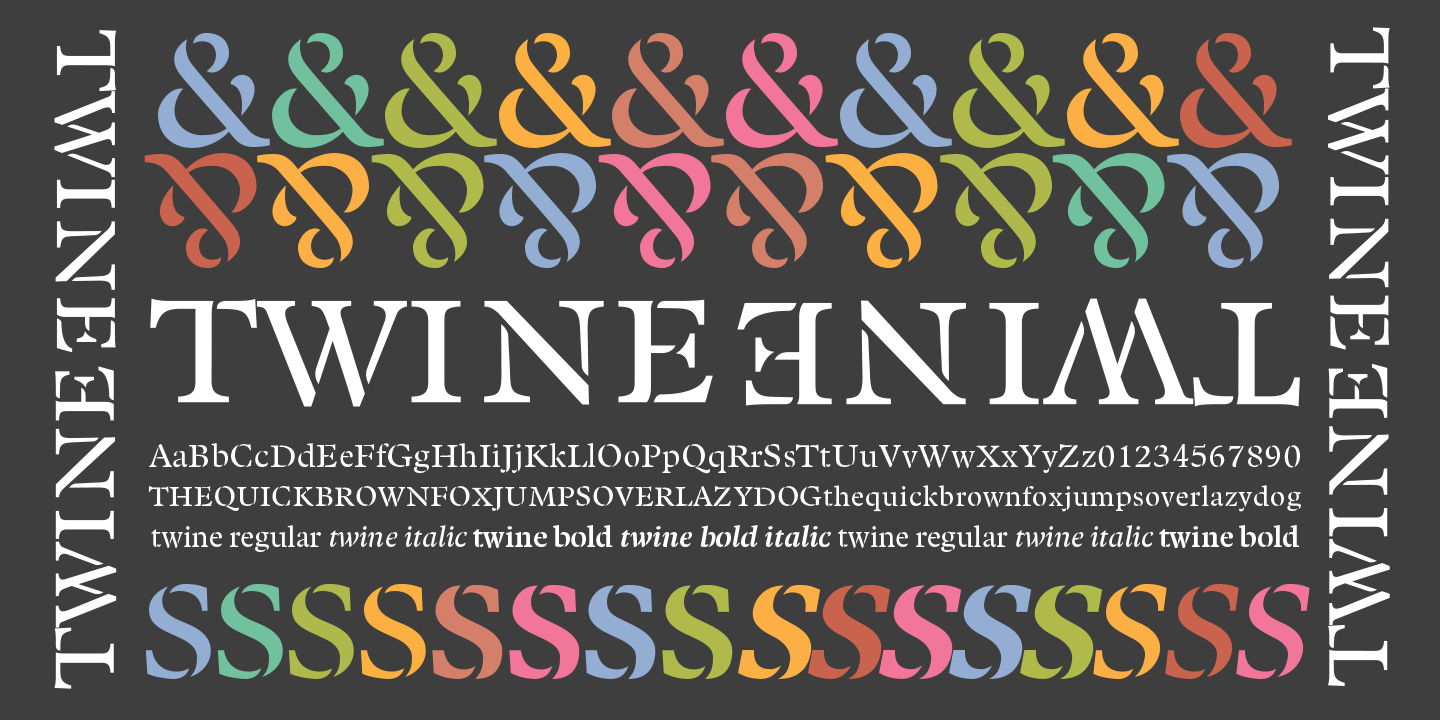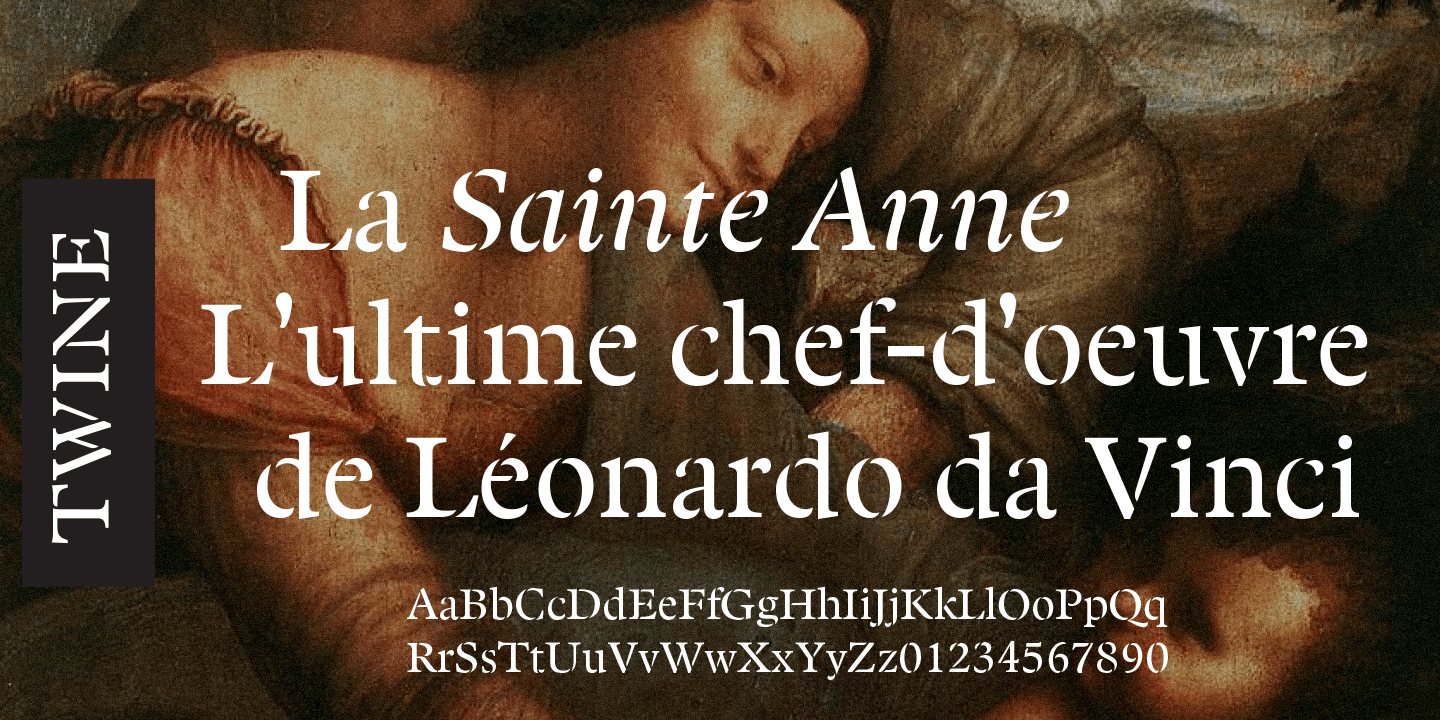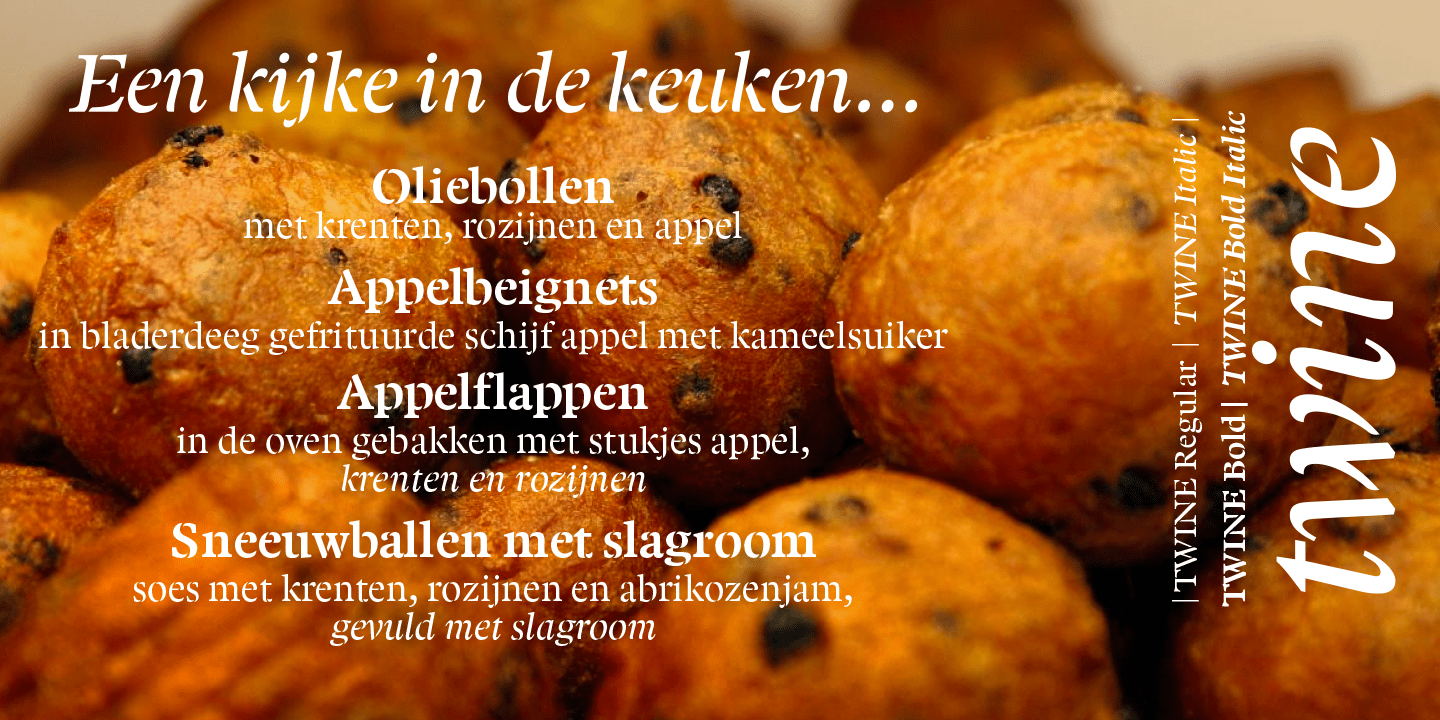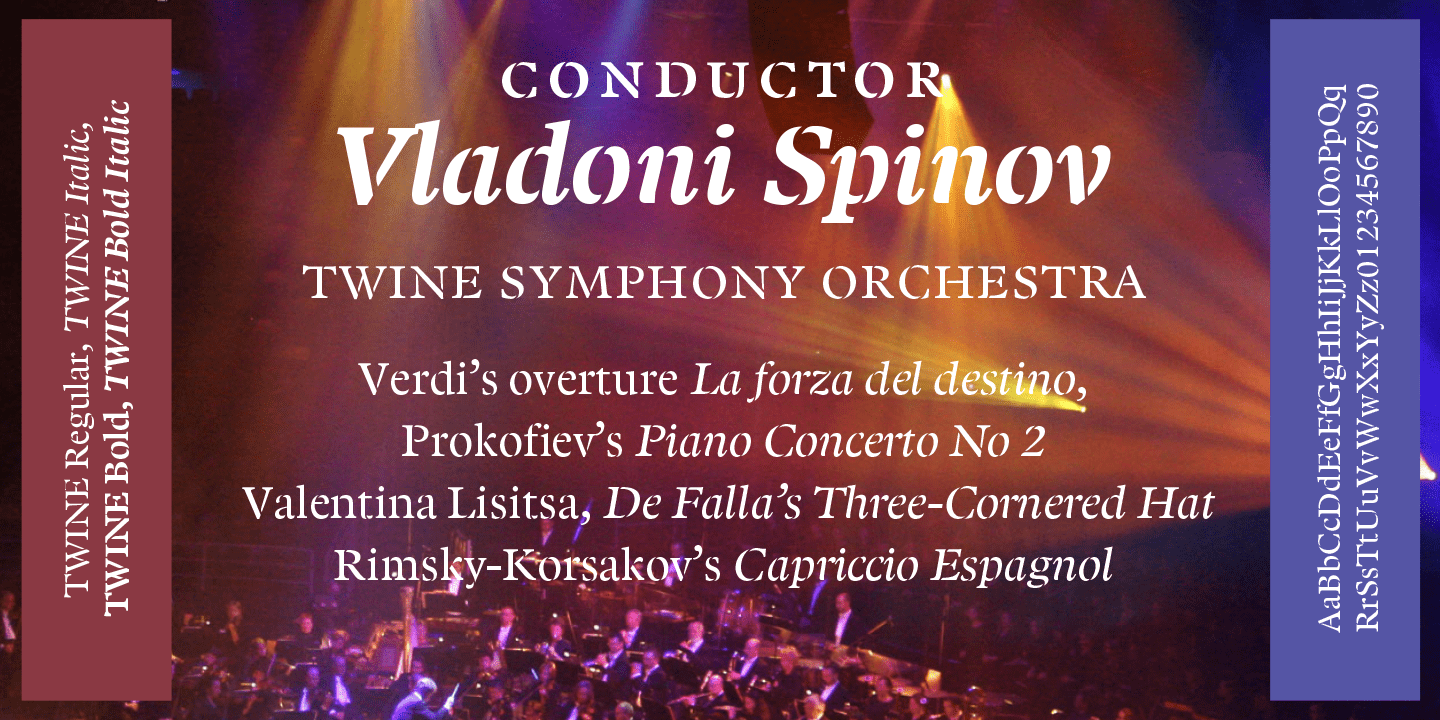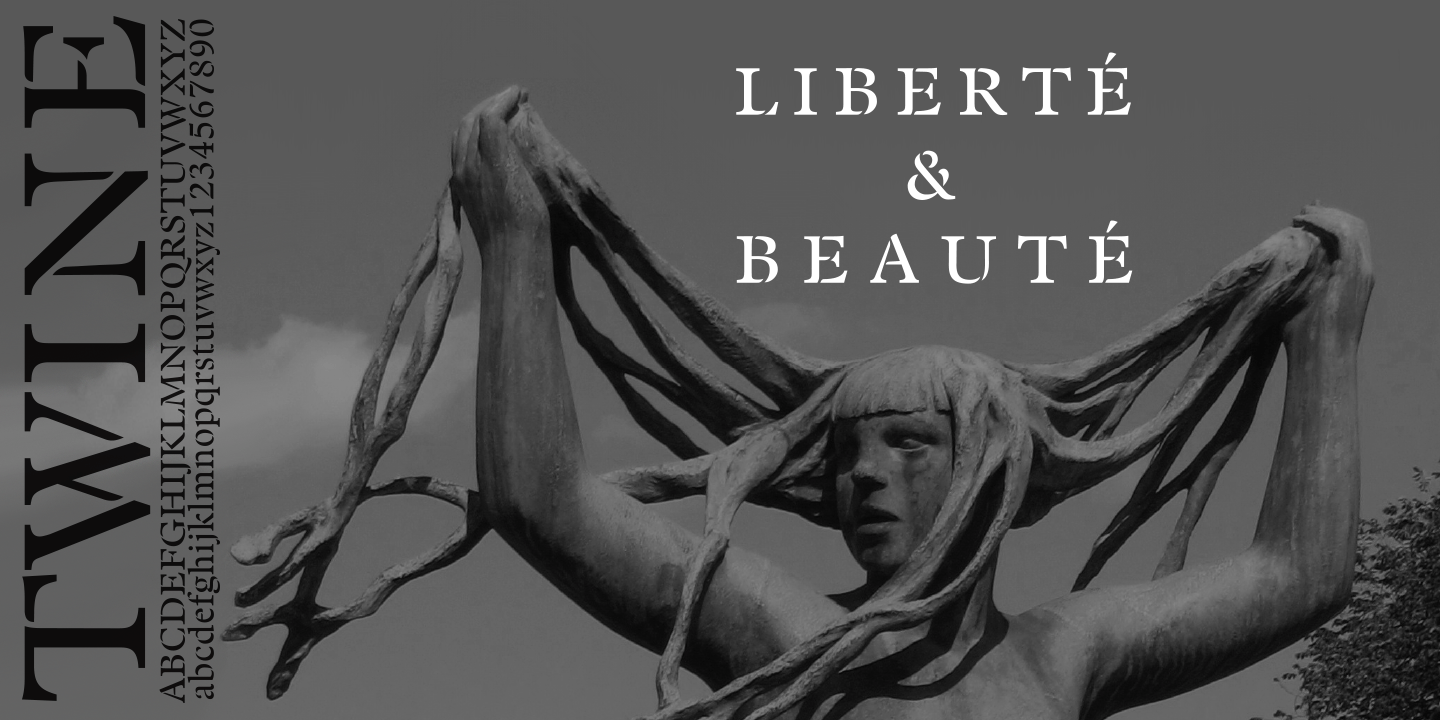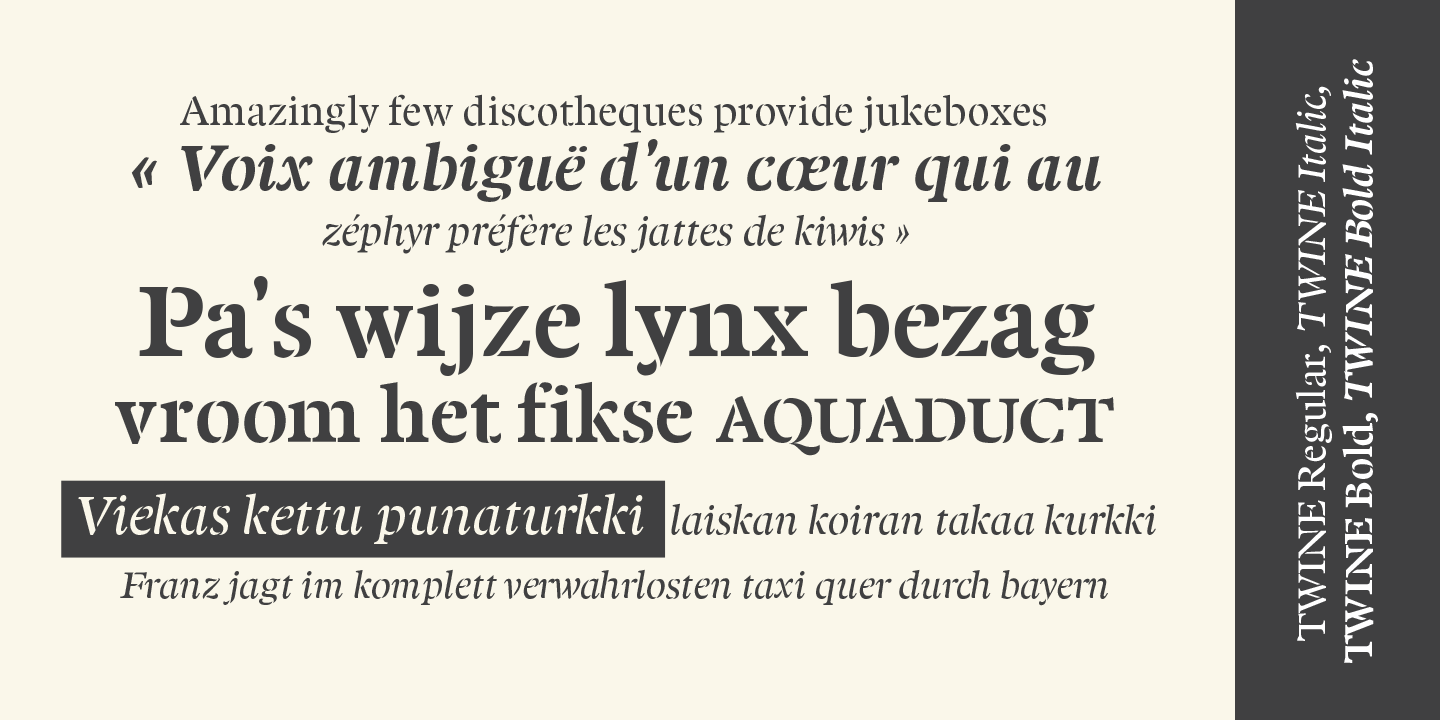
Twine
Font Family by Wilton Foundry
By twisting and weaving separate strands of rope together, a stronger TWINE is created. The distinctive ?valleys? that give the twine its twisted and wavy appearance is the result of the twining process.
Similarly, TWINE the font, is an exaggerated representation of the calligrapher's individual pen movements that create a cohesive character which is enhanced by the stencil strokes. Since TWINE emphasizes the calligraphic strokes, you will find it very legible even in small point sizes. Furthermore, twine is inspired by Plantin, an old-style serif typeface named after the printer Christophe Plantin, which is based on the 16th century Gros Cicero face cut by Robert Granjon.
Twine is a great choice when you need a font that is timeless, contemporary and distinctive. Perfect for Advertising, Corporate identities and Packaging design, Museum display, Technology, Hospitality, Travel, and Retail.
Twine is available in TWINE Regular, TWINE Italic, TWINE Bold, TWINE Bold Italic. It is Distinctive, Contemporary, Timeless, Stencil.